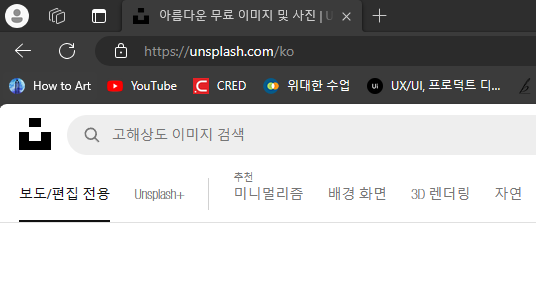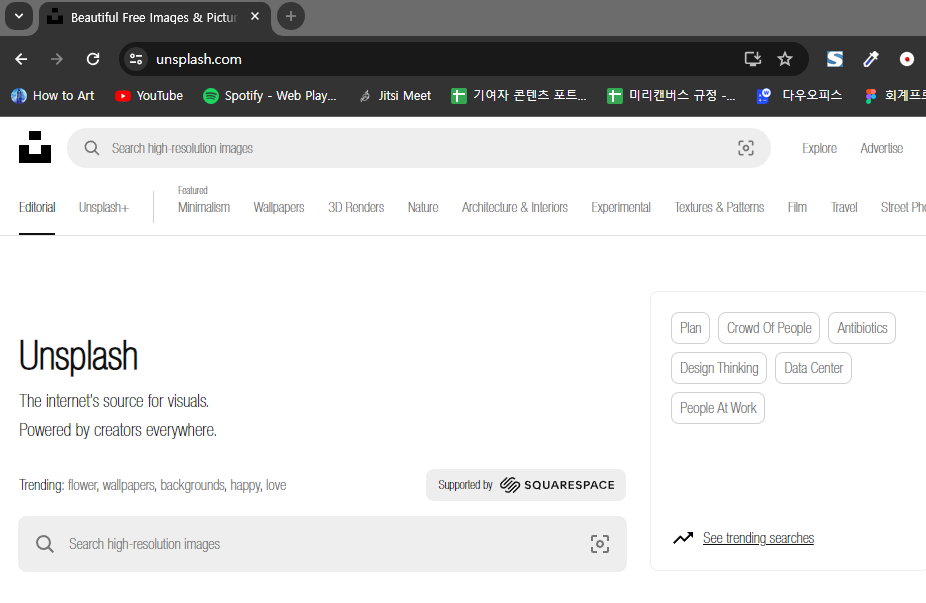
Something wrong with English font display on certain websites
Somethings wrong with font display..
Some websites only show condensed fonts so I can barely read comfortably.
I usually use Chrome so I changed default font on Chrome to Noto Sans series.
But there are sites like Unsplash that show font whatever they like, and it's ALWAYS CONDENSED FONT..
I thought it was Chrome problem so I turned that site with another browser (Naver Whale and Microsoft Edge too) and same thing happened.
This is Chrome
and This is Microsoft Edge. Please look at English font.. Korean font is fine because that condensed font doesn't support Korean.
Unfortunately that is not the site's problem, so if I enter some other sites and they show only condensed font AGAIN.
I turned on Developer Window to check what font cause this problem and found out it's Helvetica Nene.
But I cannot find how to solve this.. What is wrong with this font on Window 11..
This problem is driving me crazy for months so I hope there's something I can do